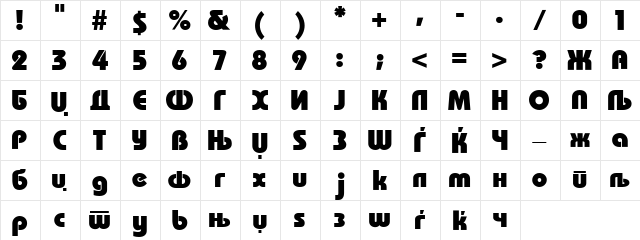
C_Bauhaus-HeavyKIR Bold
Design Context for C_Bauhaus-HeavyKIR Typeface
C_Bauhaus-HeavyKIR offers clean, dependable letterforms without strong stylistic allegiance, making it a practical choice for designers who need flexibility. The heavy weight commands attention and anchors typographic hierarchies.